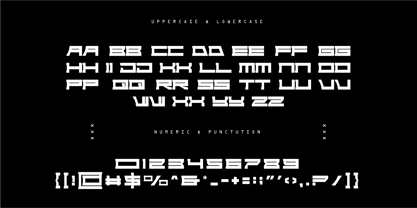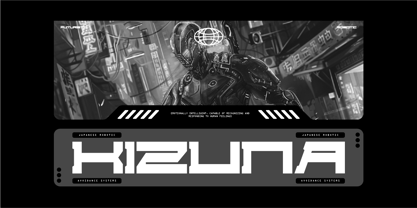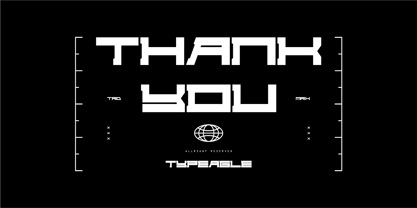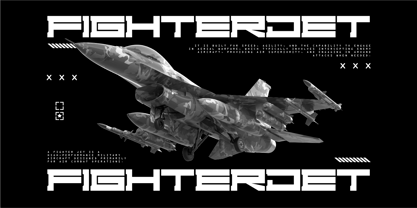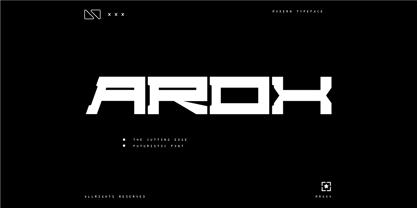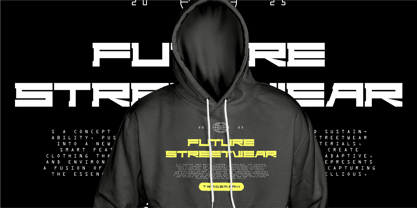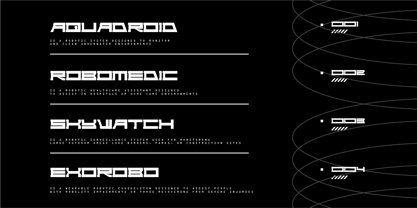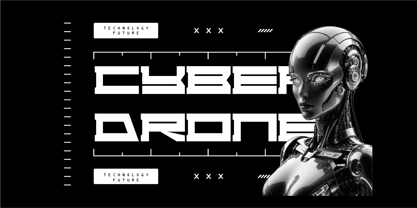
Arox
by Typeagle
The Arox Font Family and published by Typeagle. Arox contains 1 styles. More about this family
Arox is modern typeface collection characterized by sleek, angular lines and sharp geometric forms, often used in sci-fi, tech, and esports designs. It blends minimalism with cutting-edge aesthetics, making it ideal for high-tech branding, digital interfaces, posters, and logos. These fonts are versatile, with styles that range from sleek, high-contrast letterforms to more aggressive, blocky designs, offering both readability and visual impact.